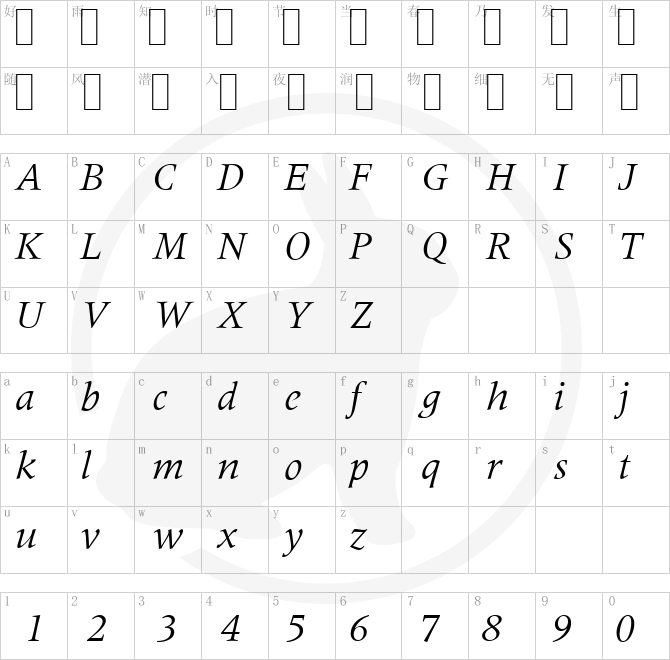
M690-Roman-Italic.ttf is a very beautiful artistic font, M690-Roman-Italic.ttf is widely used in the design and printing of various books and pictures,M690-Roman-Italic.ttf has a strong visual impact,M690-Roman-Italic.ttf is a commonly used font in newspapers, magazines and books, and is used in posters, e-commerce Poster design, store design, logo design, font design and other fields.M690-Roman-Italic.